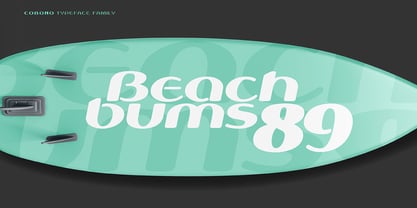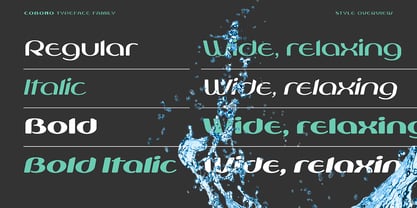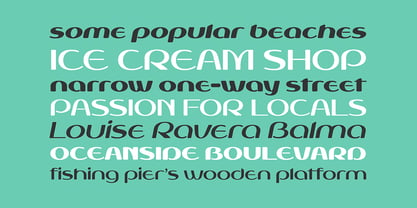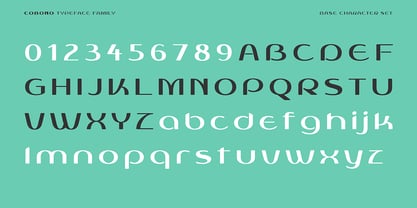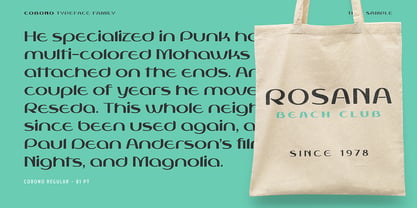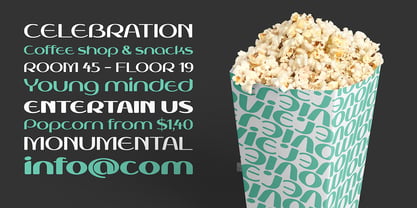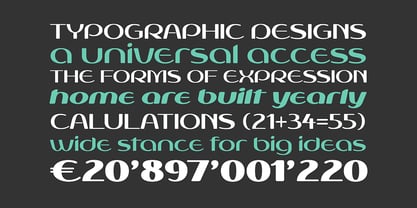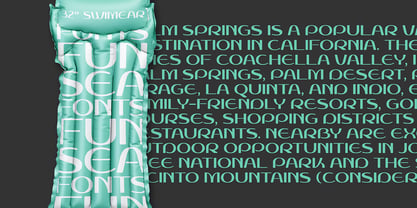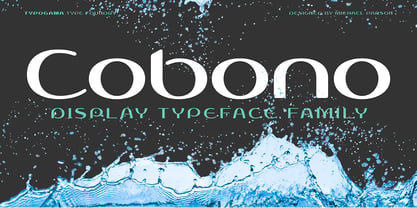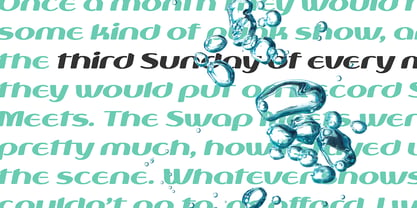
Cobono
The Cobono Font Family was designed by Michael Parson and published by T-26. Cobono contains 4 styles and family package options. More about this family
Cobono is a friendly, rounded display typeface aimed for use in branding or short passages of text. With a wide stance, open counters, and rounded terminals, it aims to evoke a calm, relaxed voice for any message, and its very tall x-height gives the letters strong legibility at any size. It contains a wide character set that covers the extended Latin encoding and allows the support of a range of languages, from English, Polish, Turkish, or Vietnamese.